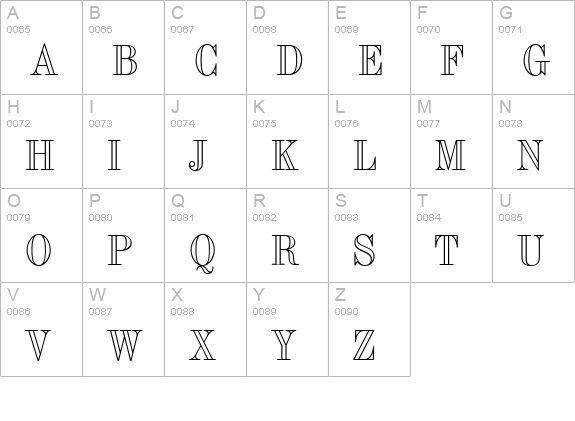
CgTorinoOutline Font Details
CgTorinoOutline is a modern and elegant display font that adds a touch of sophistication to any design project. With its clean lines and sleek appearance, this font is perfect for creating eye-catching headlines, logos, and branding materials. The unique outline style of CgTorinoOutline makes it stand out from other fonts, giving your designs a distinctive and stylish look. What's even better is that CgTorinoOutline is available for free download at FontsMarket.com. This means you can easily access this beautiful font and use it in your projects without any cost. Whether you're working on a personal project or a professional design, CgTorinoOutline is a versatile font that will elevate your work to the next level. Download it today and add a touch of elegance to your designs with this stunning font.